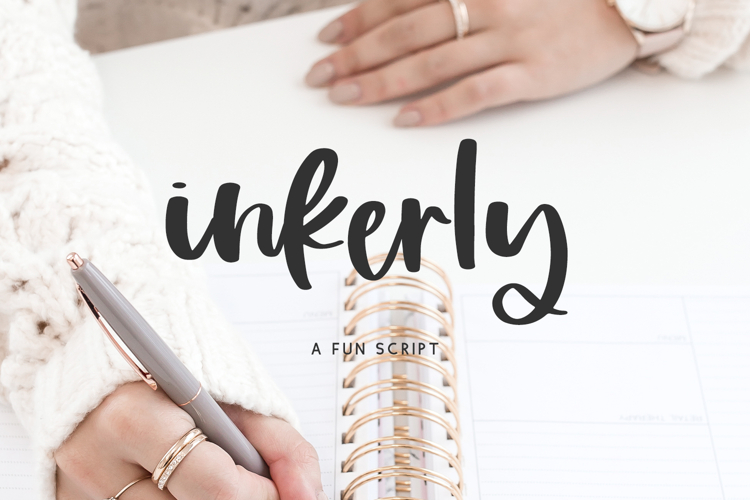
Introducing Inkerly, a chunky handlettered font. Inkerly features a semi-script look with a cute bouncy baseline.
Inkerly is best for:
- crafting with your Cricut or Silhouette machine, as it features super smooth lines for an easy cut